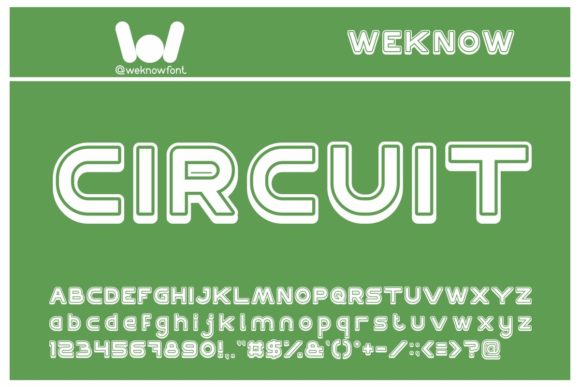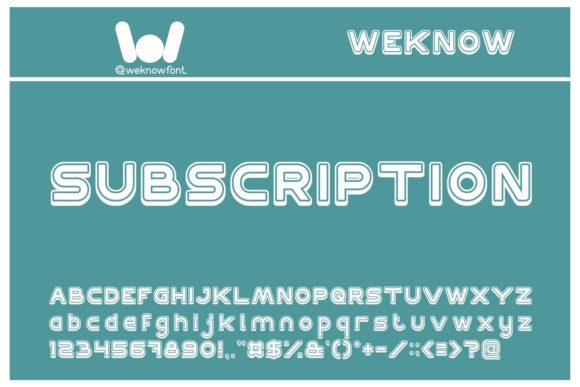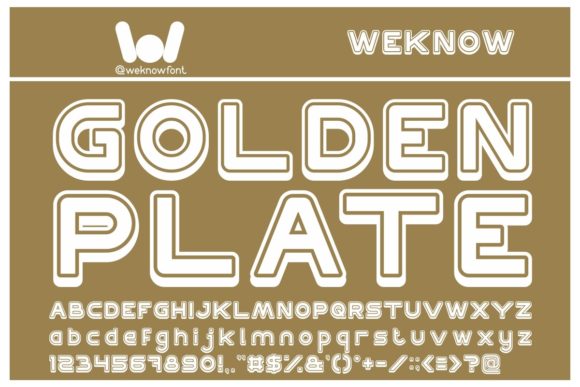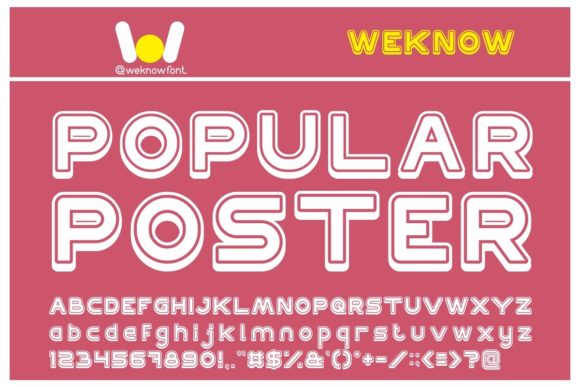
Unleash Your Creativity with Discovery Font: A Modern Display Powerhouse
In the world of design, fonts play a pivotal role in conveying messages, evoking emotions, and capturing attention. For designers and crafters looking for a typeface that combines coolness, boldness, and modernity, the Discovery Font is an excellent choice. This stunning display font is versatile, making it perfect for a wide range of applications, from food menus and posters to flyers and prints. In this article, we’ll dive into the features and benefits of the Discovery Font, exploring how it can elevate your designs and unlock endless creative possibilities.
What Makes Discovery Font Stand Out?
The Discovery Font is not just another typeface; it’s a design statement. Its cool, bold, and modern characteristics make it an instant attention-grabber. The font’s sleek lines and contemporary style ensure that your designs look fresh and current, setting them apart from the ordinary. Whether you’re working on a project that requires a professional edge or something more playful, Discovery Font adapts seamlessly, making it a valuable addition to your typography arsenal.
One of the key advantages of the Discovery Font is its versatility. Its robust and eye-catching appearance makes it suitable for various design projects, including:
The Discovery Font is more than just a typeface; it’s a creative tool that unlocks endless design possibilities. Its bold and modern aesthetic encourages experimentation and innovation, allowing designers to push boundaries and explore new visual territories. Here are a few ideas to get you started:
Why Designers and Crafters Love Discovery Font
Designers and crafters appreciate fonts that are easy to work with, versatile, and capable of elevating their projects. The Discovery Font checks all these boxes and more. Its clean design ensures legibility, even at larger sizes, making it perfect for headlines and titles. Additionally, its compatibility with various design software makes it easy to integrate into your workflow.
The Discovery Font is a game-changer for designers and crafters looking to infuse their projects with a cool, bold, and modern aesthetic. Its versatility, paired with its stunning appearance, makes it an invaluable resource for creating eye-catching designs. Whether you’re working on a commercial project or a personal craft, the Discovery Font is sure to inspire and enhance your creative endeavors. So, why wait? Explore the endless possibilities of the Discovery Font and take your designs to the next level.